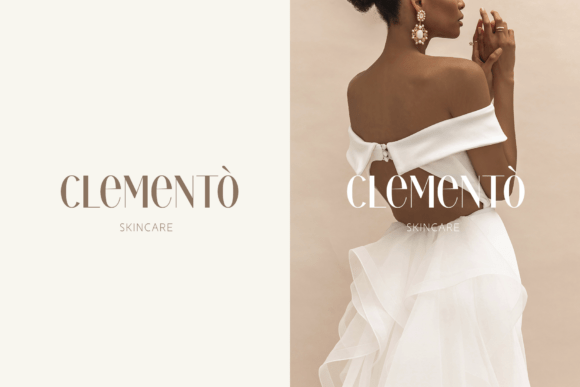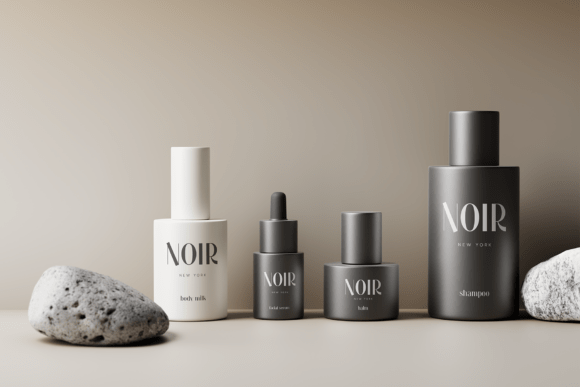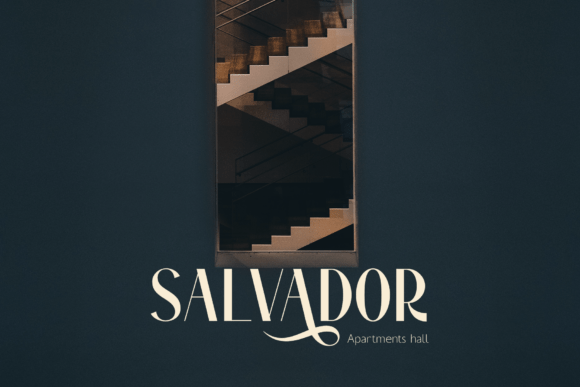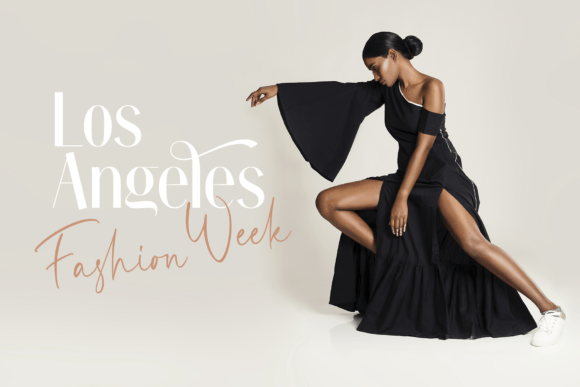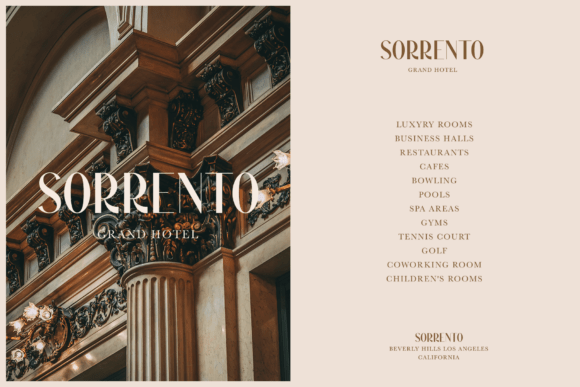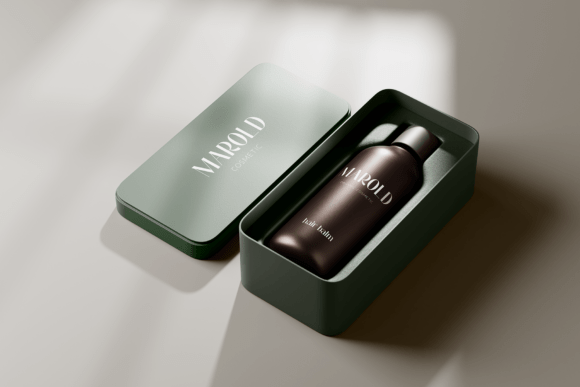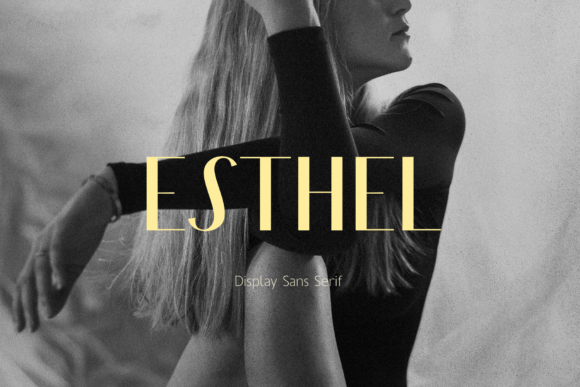
Introducing Esthel Font: Elevate Your Designs with Elegance and Sophistication
In the world of typography, fonts play a crucial role in conveying the tone and personality of a design. For designers and crafters seeking to add a touch of elegance and sophistication to their work, Esthel Font is an exceptional choice. This stunning font is designed to make a statement, boasting a glossy finish, large size, and high contrast that commands attention.
What is Esthel Font?
Esthel Font is a beautiful, elegant font that is perfect for creating visually striking designs. Its glossy finish gives it a luxurious feel, making it ideal for high-end branding, advertising, and editorial projects. With its large size and high contrast, Esthel Font is sure to make a lasting impression on your audience.
Key Features of Esthel Font
So, what sets Esthel Font apart from other fonts? Here are some of its key features:
• Stylistic Alternatives: Esthel Font includes stylistic alternatives for both upper and lower case letters, allowing you to experiment with different styles and create unique designs.
• Standard Ligatures: The font also features standard ligatures, which help to create a seamless and cohesive look in your designs.
• High Contrast: Esthel Font’s high contrast design makes it perfect for creating visually striking headings, titles, and logos.
• Glossy Finish: The font’s glossy finish gives it a luxurious feel, making it ideal for high-end branding and advertising projects.
Uses of Esthel Font
Esthel Font is a versatile font that can be used in a variety of design projects, including:
• Logos: Create stunning logos that make a lasting impression on your audience.
• Banners: Use Esthel Font to create eye-catching banners that grab attention.
• Advertising: The font’s glossy finish and high contrast make it perfect for advertising projects, such as billboards, magazine ads, and more.
• Packaging: Add a touch of elegance to your packaging designs with Esthel Font.
• Book Covers and Magazines: Use the font to create stunning book covers and magazine titles that stand out.
• Headings and Descriptions: Esthel Font is perfect for creating headings and descriptions that add a touch of sophistication to your designs.
Tips for Using Esthel Font
To get the most out of Esthel Font, here are some tips to keep in mind:
• Use it in large sizes: Esthel Font is designed to make a statement, so use it in large sizes to maximize its impact.
• Experiment with colors: The font’s glossy finish looks stunning in a variety of colors, so don’t be afraid to experiment and find the perfect hue for your design.
• Pair it with complementary fonts: Esthel Font pairs well with a variety of fonts, so try pairing it with complementary fonts to create a unique and visually striking design.
Esthel Font is a stunning, elegant font that is perfect for designers and crafters seeking to add a touch of sophistication to their work. With its glossy finish, high contrast, and stylistic alternatives, Esthel Font is sure to make a lasting impression on your audience. Whether you’re creating logos, banners, advertising, packaging, book covers, or magazine titles, Esthel Font is an exceptional choice.